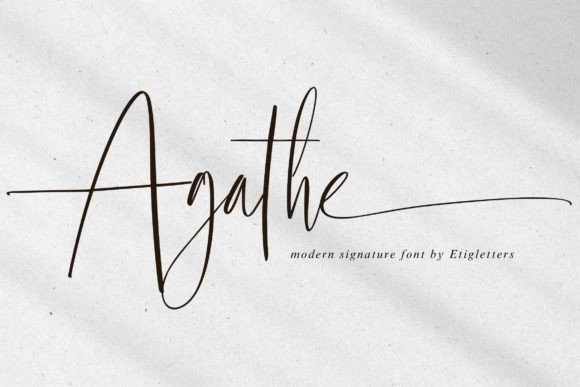
Step into the world of elegance and sophistication with Agathe Font, the script font that will transform your designs into masterpieces. Inspired by the art of handwritten calligraphy, Agathe captures the essence of grace and fluidity, making it the perfect choice for creating stunning wedding stationery, heartfelt logos, and captivating branding.
Immerse yourself in the intricate details of Agathe's flowing characters, each stroke carefully crafted to mimic the beauty of handwritten letters. With a full set of ending lowercase swashes, you can add a touch of whimsy and charm to your designs, evoking the feeling of a personal, handwritten message.
Unlock the endless possibilities of Agathe by combining it with a Sans serif font, creating a harmonious blend of styles that will elevate your designs to new heights. Whether you're crafting social media quotes, designing websites, or creating elegant logos, Agathe's versatility knows no bounds.
Experience the convenience of Agathe's PUA encoding, which allows you to effortlessly access the font's entire repertoire of glyphs and ligatures. Unleash your creativity and explore the myriad ways to customize your designs, adding a unique and personal touch to every project.
Let Agathe be your artistic muse, guiding you to create designs that leave a lasting impression. Its timeless elegance and captivating charm will captivate your audience, leaving them in awe of your design prowess. Embrace the beauty of handwritten artistry with Agathe Font, and let your designs shine with grace and sophistication.